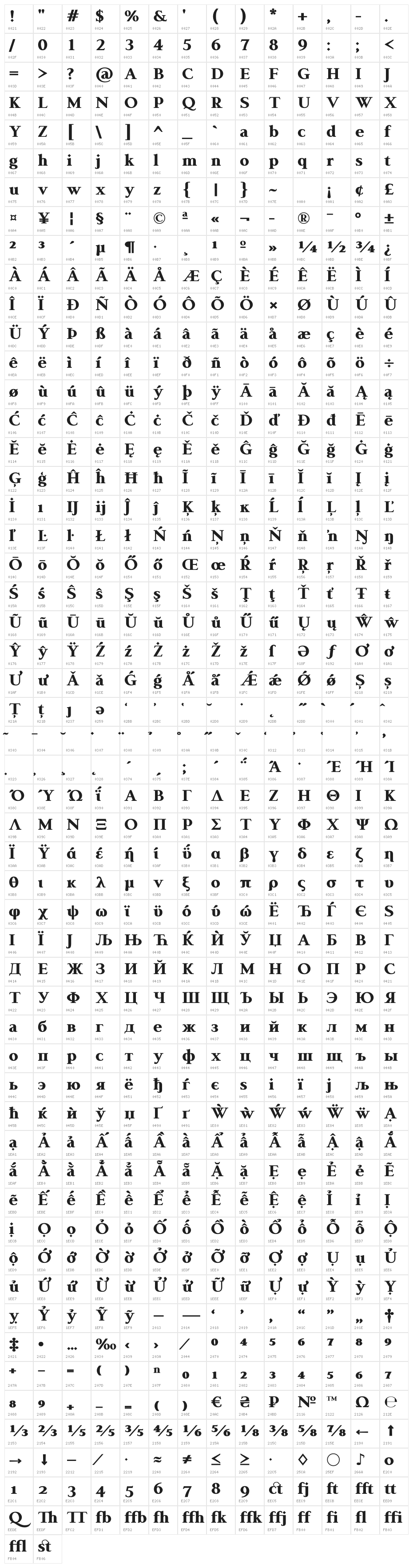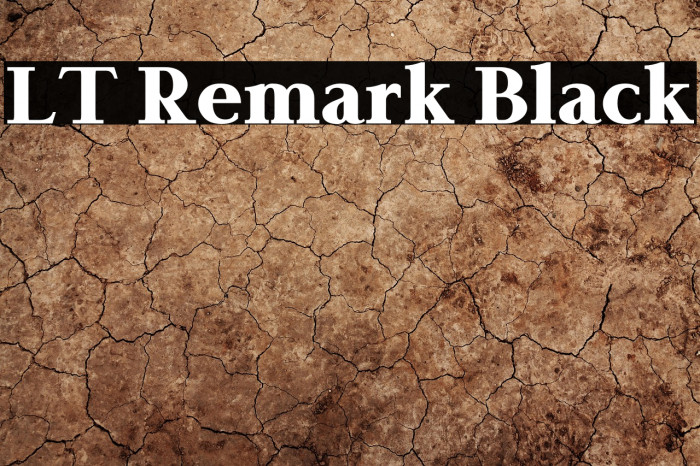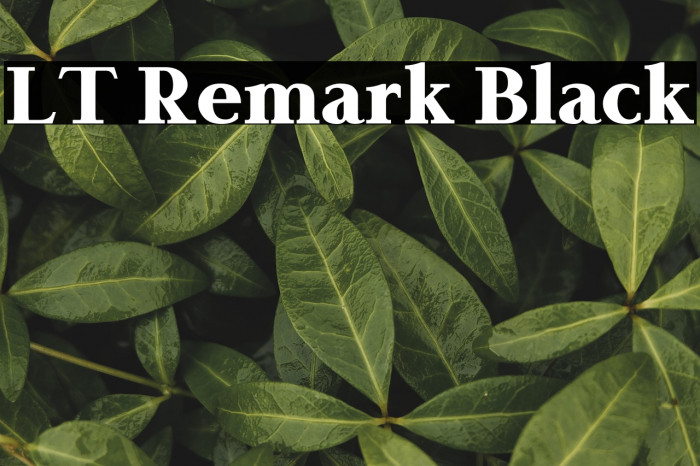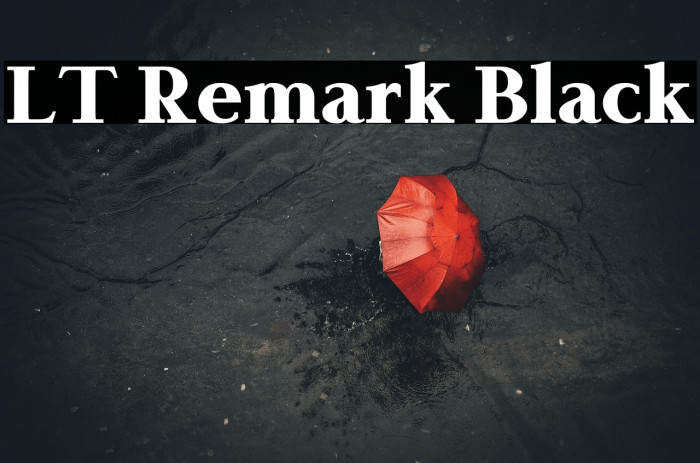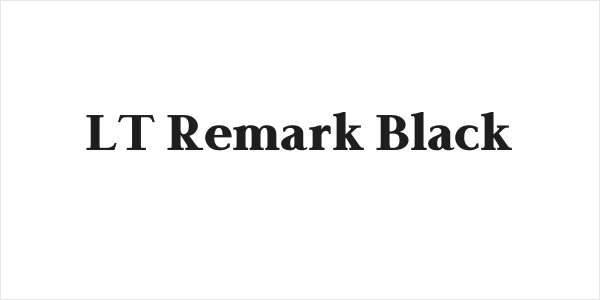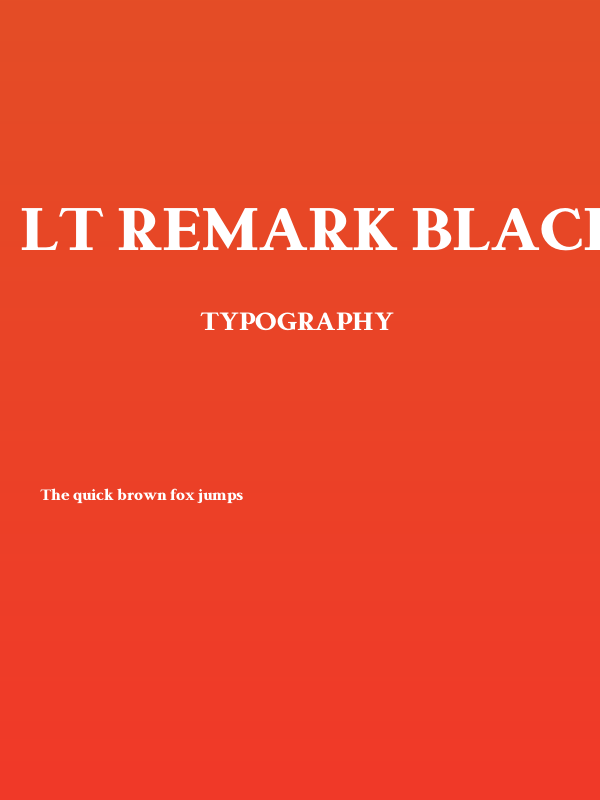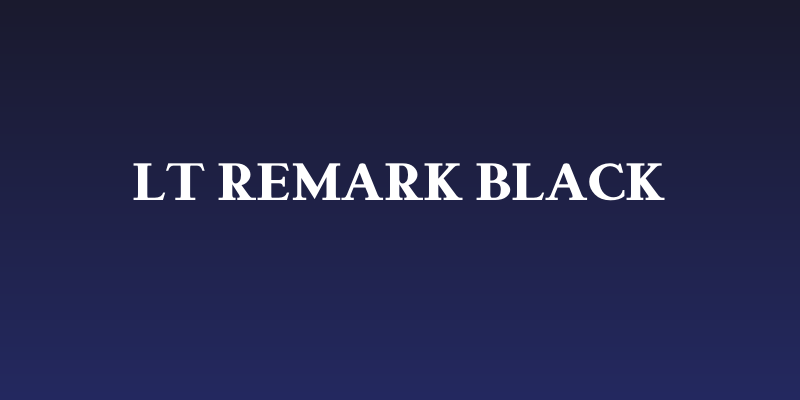
LT Remark Black Font
LT Remark Black Description
This font exhibits a bold and commanding presence, characterized by its thick and robust strokes. The serif design adds a touch of classic elegance, making it suitable for projects that require a strong and authoritative look. The uppercase letters are particularly striking, with their pronounced serifs and substantial weight. The lowercase letters maintain a consistent style, ensuring readability while retaining the bold aesthetic. Numerals are clear and well-defined, complementing the overall design. Special characters are crafted with attention to detail, matching the font's bold and classic style.
| Proposed Projects | Ideal for headlines, branding, posters, and any project needing a strong, authoritative typeface. |